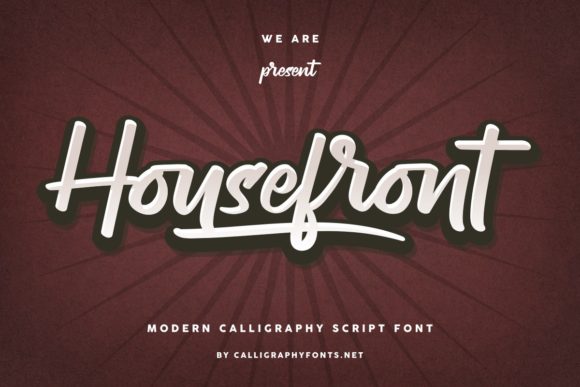
Enter the realm of elegance and charm with Housefront Font, a masterpiece crafted by CalligraphyFonts, designed to ignite the flames of romance and creativity. Adorned with graceful strokes and sweeping curves, this script font exudes a timeless allure that will leave you spellbound.
Journey into a world of heartfelt expressions, where every word dances across the page like a sweet melody. Housefront Font captures the essence of handwritten love letters, inviting you to pour your heart out onto the digital canvas. Its delicate details and enchanting flow will transform your digital creations into cherished keepsakes, preserving your emotions in an enduring form.
Unleash your creativity and let your imagination soar with Housefront Font. Its versatility extends beyond love poems, reaching into the realms of wedding invitations, greeting cards, and heartfelt social media posts. With Housefront Font, every word becomes a brushstroke, painting a vivid picture that speaks volumes.
Effortlessly create designs that resonate with your audience, evoking emotions and capturing their attention. Housefront Font's PUA encoding grants you access to a treasure trove of glyphs and swashes, empowering you to add intricate embellishments and flourishes that elevate your designs to new heights.